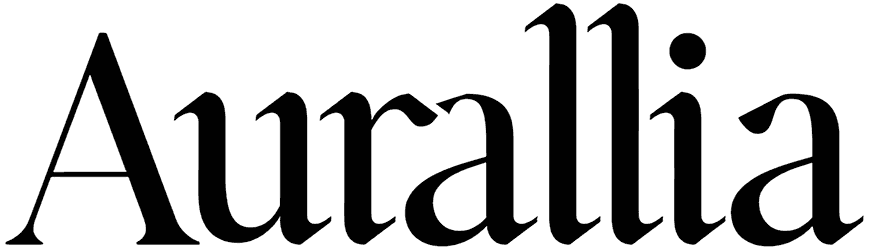
Aurallia Font
Turn to account this professional, sexy font to convert your typography into a charming and standard one. Right away, keep going, pull your finger out to insert Aurallia in many titling, branding, logotype, official documents, or other needs to save its traditional style. To get more of this pack, head over to RB like a shot!